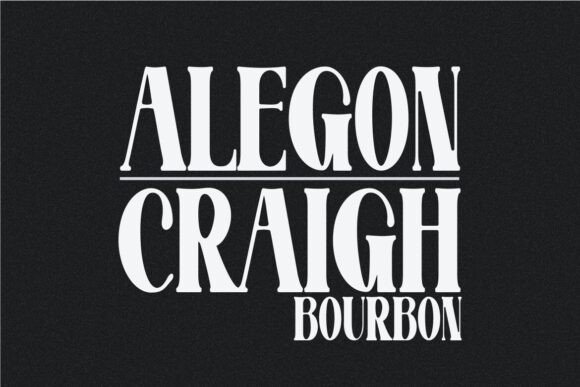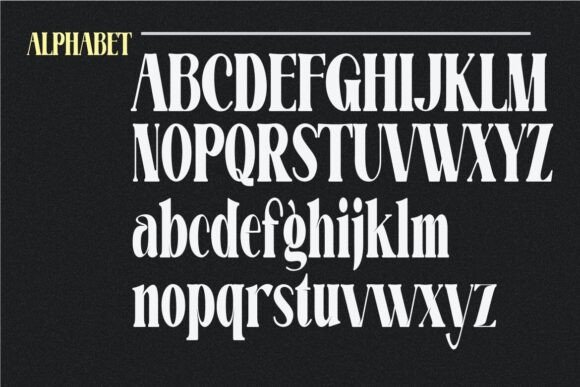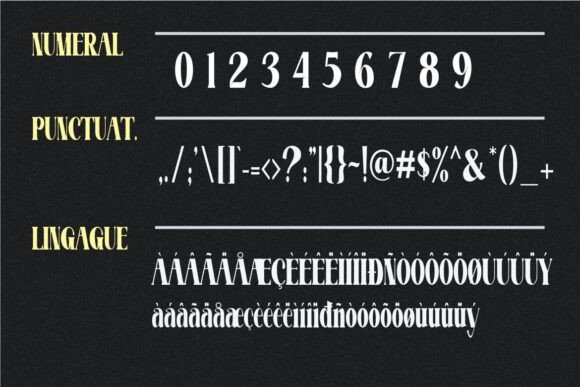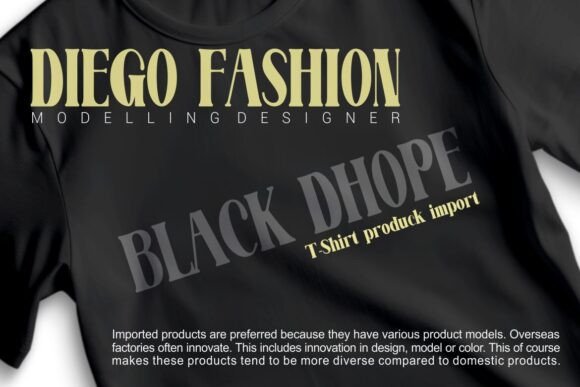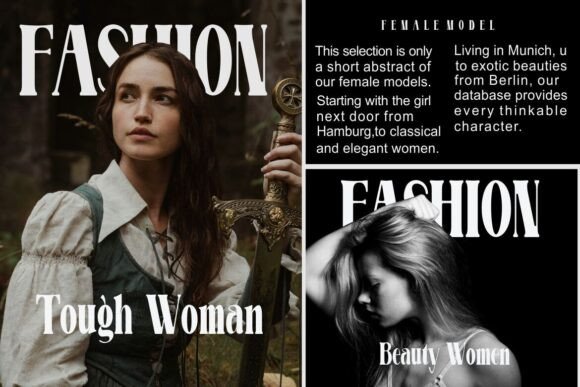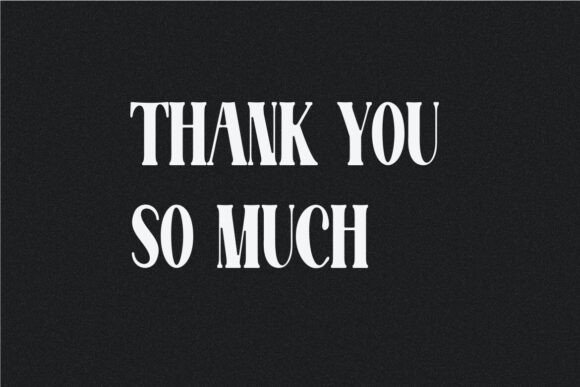
Bregan Font: Elevate Your Designs with Elegance and Boldness
Are you looking for a font that exudes elegance and sophistication? Look no further than the Bregan font. This stunning serif font is perfect for designers and crafters who want to add a touch of luxury to their creations. With its incredibly versatile style, Bregan is ideal for a wide range of projects, from wedding invitations and stationery to social media posts and more.
The Characteristics of Bregan Font
Bregan is a bold and elegant serif font that is sure to make a statement. Its classic design features beautiful serifs and a sophisticated feel, making it perfect for projects that require a touch of refinement. The font is highly legible, even at small sizes, making it ideal for use in a variety of applications.
What Makes Bregan Font So Versatile?
One of the things that sets Bregan apart from other fonts is its incredible versatility. This font can be used in a wide range of projects, from:
- Wedding invitations and stationery: Add a touch of elegance to your wedding invitations, save-the-dates, and stationery with Bregan.
- Social media posts: Make your social media posts stand out with Bregan’s bold and eye-catching style.
- Logos and branding: Use Bregan to create a sophisticated and professional logo for your business.
- Signage and displays: Bregan is perfect for use in signage and displays, where its bold and elegant style can be seen from a distance.
- Packaging and labels: Add a touch of luxury to your packaging and labels with Bregan’s elegant design.
Why Designers and Crafters Love Bregan Font
Designers and crafters love Bregan for many reasons. Here are just a few:
- Elegance: Bregan’s classic design and beautiful serifs make it the perfect choice for projects that require a touch of elegance.
- Versatility: Bregan can be used in a wide range of projects, making it a great addition to any designer’s or crafter’s font collection.
- Legibility: Bregan is highly legible, even at small sizes, making it perfect for use in a variety of applications.
Tips for Using Bregan Font
Here are a few tips for using Bregan font in your designs:
- Pair Bregan with a sans-serif font for a beautiful contrast.
- Use Bregan in large sizes to make a bold statement.
- Don’t be afraid to get creative and try new things – Bregan is a versatile font that can be used in many different ways.
In conclusion, Bregan font is a stunning serif font that is perfect for designers and crafters who want to add a touch of elegance and sophistication to their creations. With its incredibly versatile style, Bregan can be used in a wide range of projects, from wedding invitations and stationery to social media posts and more. Whether you’re looking to create something classic and refined or bold and eye-catching, Bregan is the perfect choice.
Get Ready to Fall in Love with Bregan Font
So why wait? Fall in love with Bregan font and start creating gorgeous designs today. With its elegant design, versatile style, and ease of use, Bregan is sure to become a favorite in your font collection.